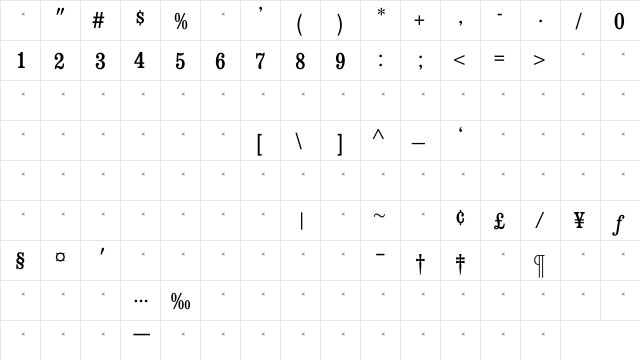
ConsortMediumCondensedTab Regular
Design Context for ConsortMediumCondensedTab Typeface
ConsortMediumCondensedTab is a composed and adaptable typeface that performs quietly and consistently across a wide range of design contexts. Its narrow stance lets it pack a punch even in space-constrained designs.